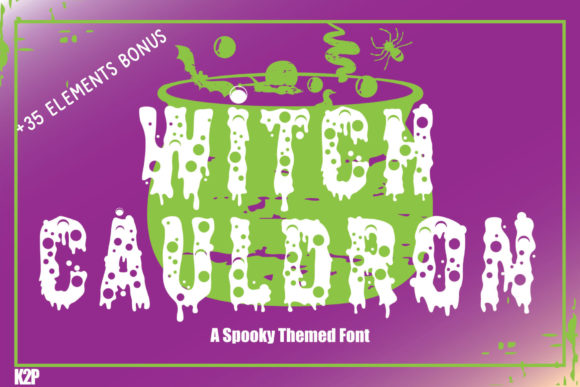
Welcome to the realm of Witch's Cauldron font, a magical brew of letters that will cast a spell on your designs. This decorative font, conjured by the talented KtwoP, is a concoction of thick, bewitching letters, perfect for conjuring the spirit of Halloween or adding a touch of spooky charm to your creative endeavors.
Unleash your inner sorcerer and let your imagination run wild as you conjure captivating home name plates, spellbinding posters, or haunting invitations. Witch's Cauldron's enchanting glyphs will transform your words into an eerie symphony, making them leap off the page and dance before the eyes of your audience.
Transport yourself to a world of witches, ghosts, and ghouls as you craft designs that ooze with mystery and intrigue. This font is your magic wand, ready to weave its spell on any project you desire. Create spine-chilling flyers for Halloween parties, design eerie logos that send shivers down the spine, or craft enchanting book covers that promise tales of untold horror.
With its thick, bold strokes, Witch's Cauldron commands attention, demanding to be seen and felt. Its unique character adds a touch of whimsy to any design, making it the perfect choice for those seeking a font that is both captivating and unforgettable.
Step into the realm of Witch's Cauldron and let your creativity take flight. This font is your gateway to a world of enchanting possibilities, where your designs will be transformed into haunting masterpieces. Embrace the magic and let Witch's Cauldron cast its spell on your imagination.